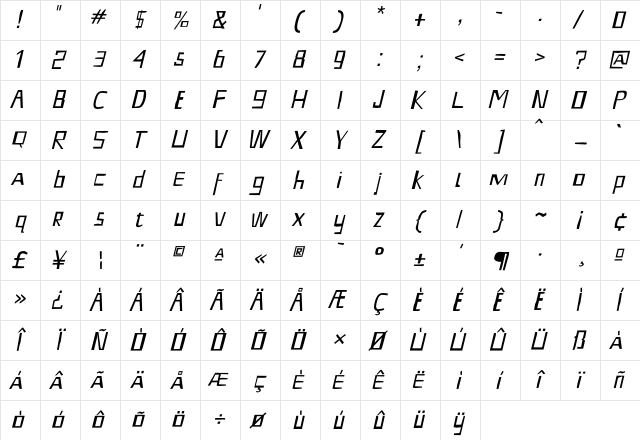
Complete ShoeRepairs Italic glyph index. Displaying only characters natively supported by ShoeRepairs Italic font.
ShoeRepairs is a composed and adaptable typeface that performs quietly and consistently across a wide range of design contexts. The slanted form adds forward momentum and visual energy.